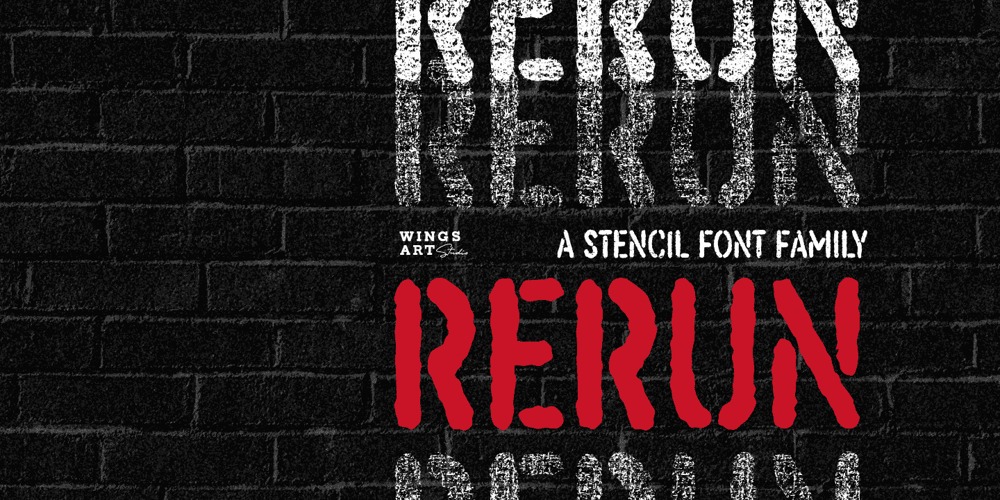
ReRun Stencil Font Family was designed by Christopher King and published by Wing’s Art Studio. ReRun Stencil contains 4 styles and family package options. A hand-drawn stencil font for video games and film titles with a grungy urban design. This all-caps display font offers a simple way to replicate the look of hand-drawn or sprayed on stencil lettering. An industrial style that’s used for it’s quick real-world applications found on everything from roadworks, storage containers and military vehicles; with an urban visual language uniquely suited to video games, film titles and album covers. See above for more usage ideas.This font family includes uppercase-only characters, plus all punctuation, numerals and language support.Contents:ReRun includes 4 styles:- Rough – Clean- Outline – LightRecreate the textured look in these visuals using our infinite textures for Adobe Illustrator. Available to download from our website.